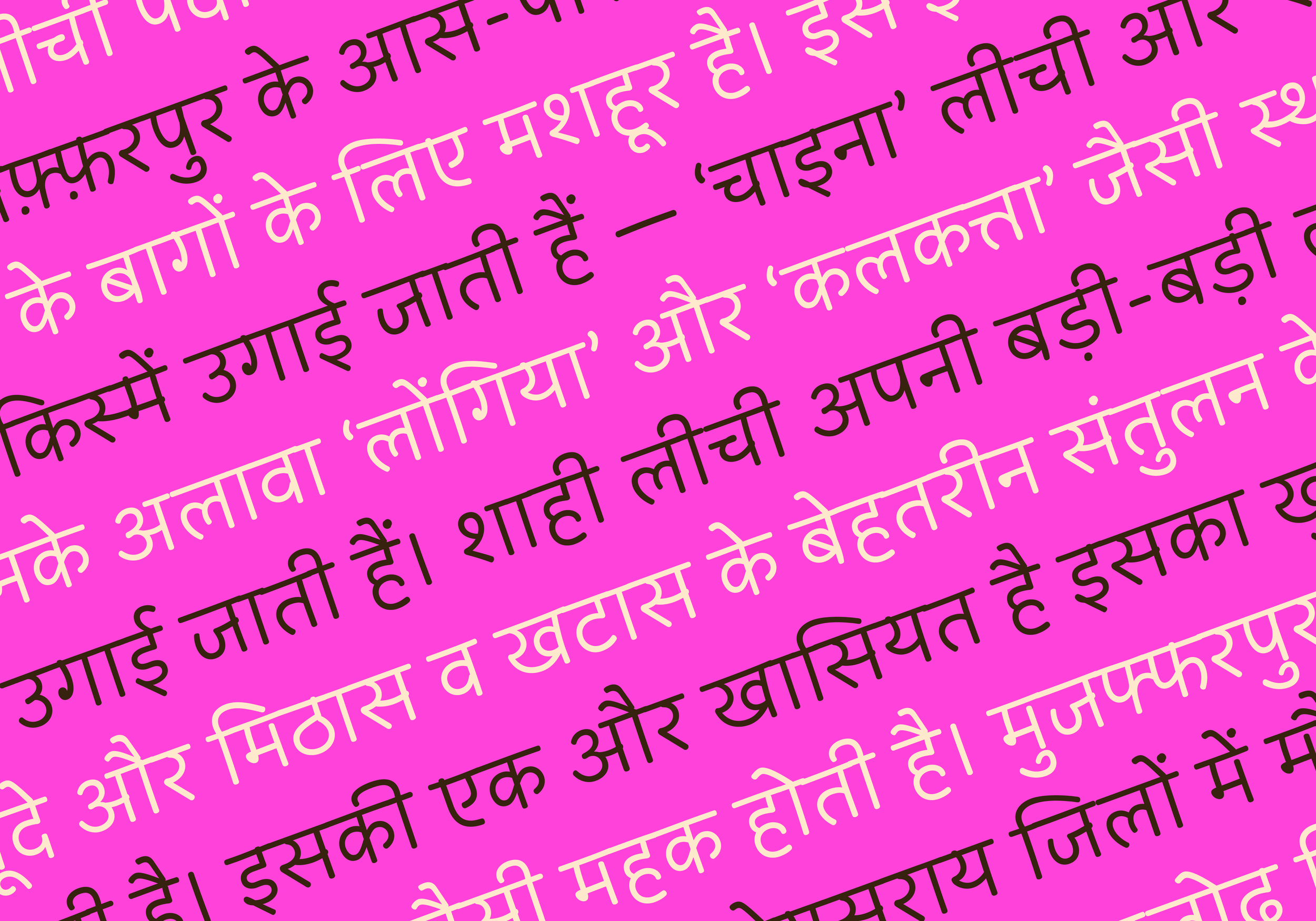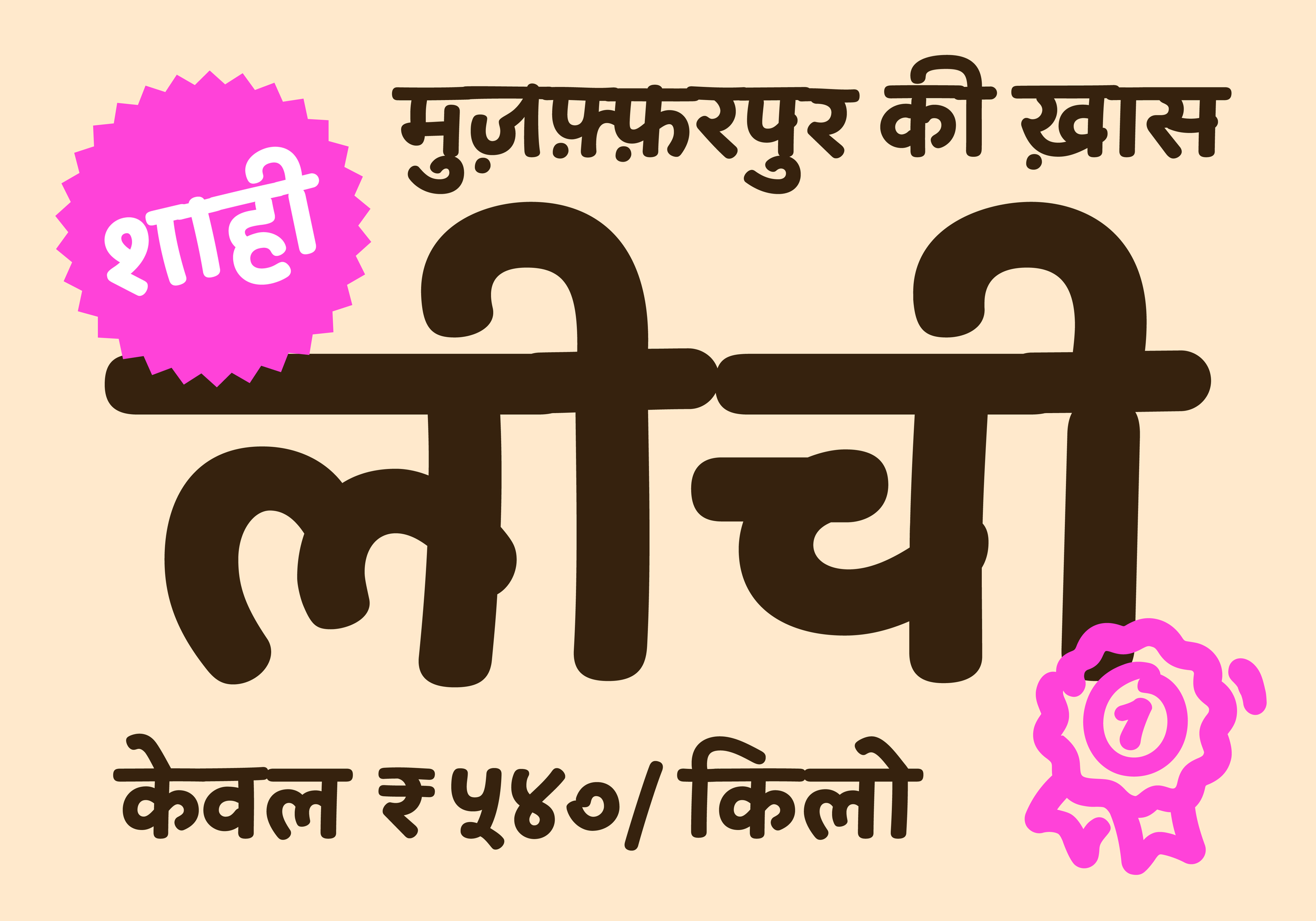
Playpen Sans Devanagari — a typeface family with the lively quirks of informal handwriting
Playpen Sans is an open source, multiscript font family imitating casual handwriting developed at TypeTogether. I designed the eight-weight Devanagari sub-family, with assistance from Gunjan Panchal.
Taking a cue from the Latin design, work on Playpen Sans Devanagari began with writing a basic Devanagari character set again and again by hand using a digital tool that mimicked a felt-tip pen. This exercise helped gather as many variations as possible in the construction and shape of letterforms within the parameters of the genre. From this pool of options, multiple versions of each letter were selected to be included in the typeface. Blemishes in headline connections, small overlaps, missed stroke connections, and shapes that deviate from typographic ideals and tend strongly towards the gestural were intentionally selected. Once the visual grammar of the typeface was formalised, the writing drill was repeated with a more directed approach to find natural shapes for half-forms, conjuncts, numerals, etc. Through a glyph shuffler devised by Joancarles Casasín, these different letter variations are displayed based on context, and no shape is repeated consecutively in text. The result is a Devanagari typeface that emulates everyday writing by capturing its imperfections and unpredictability.